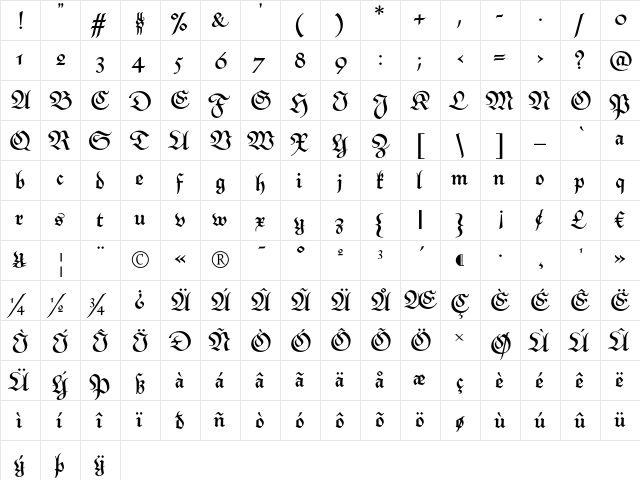
Monarchia Text Bold
Design Context for Monarchia Text Typeface
Monarchia Text is a composed and adaptable typeface that performs quietly and consistently across a wide range of design contexts. Its bold stroke weight gives it real presence on the page.